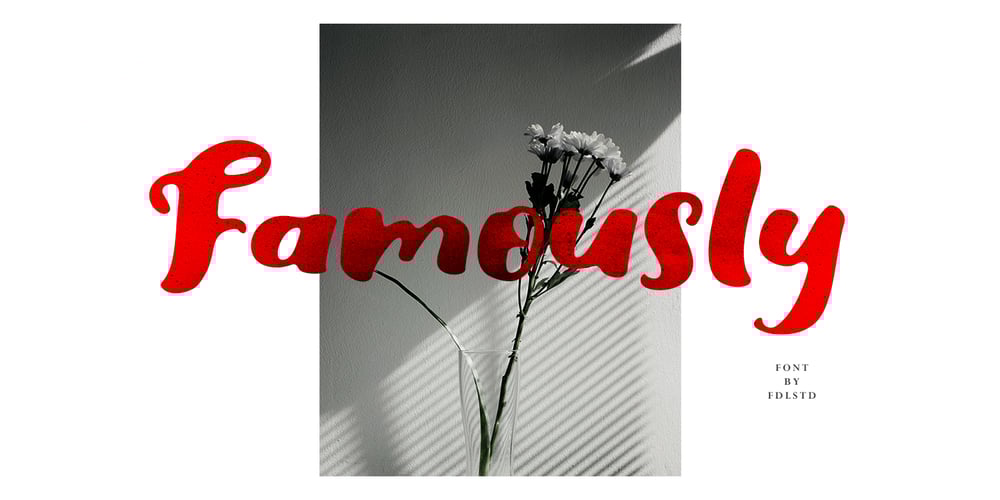
Famously Font Family was designed by Juni Fadil Putra and published by FadeLine Studio. Famously contains 1 styles and family package options. This is a new beautiful and modern display font! This fun font has cute, cute, round, unique, natural and fancy font characters. Made specifically with attention to appearance, aims to give happiness to everyone who uses it!With a style like this, this font will be suitable in use for comic, logo’s, branding projects, homeware designs, product packaging, mugs, quotes, posters, shopping bags, logo’s, t-shirts, book covers, name card, invitation cards, greeting cards, and all your other lovely projects.